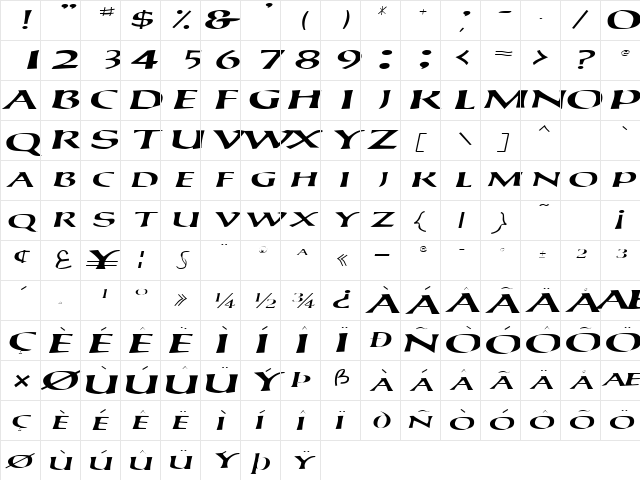
CayaugaSCapsSSK Italic
Design Context for CayaugaSCapsSSK Typeface
CayaugaSCapsSSK offers clean, dependable letterforms without strong stylistic allegiance, making it a practical choice for designers who need flexibility. The slanted form adds forward momentum and visual energy.
Pro Tip: Use CayaugaSCapsSSK for emphasis, pull quotes, and subheadings where its slanted energy can add rhythm to the layout.